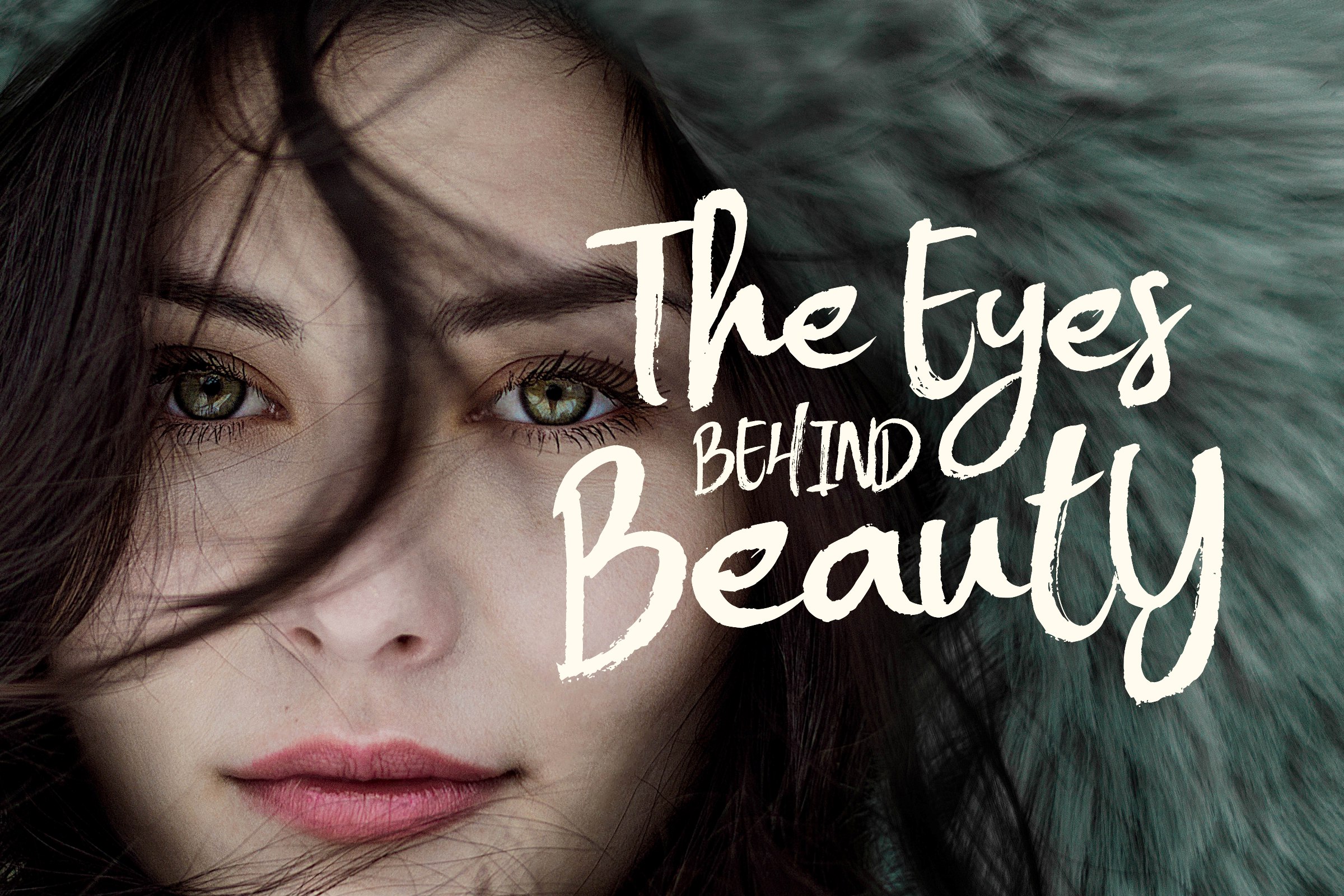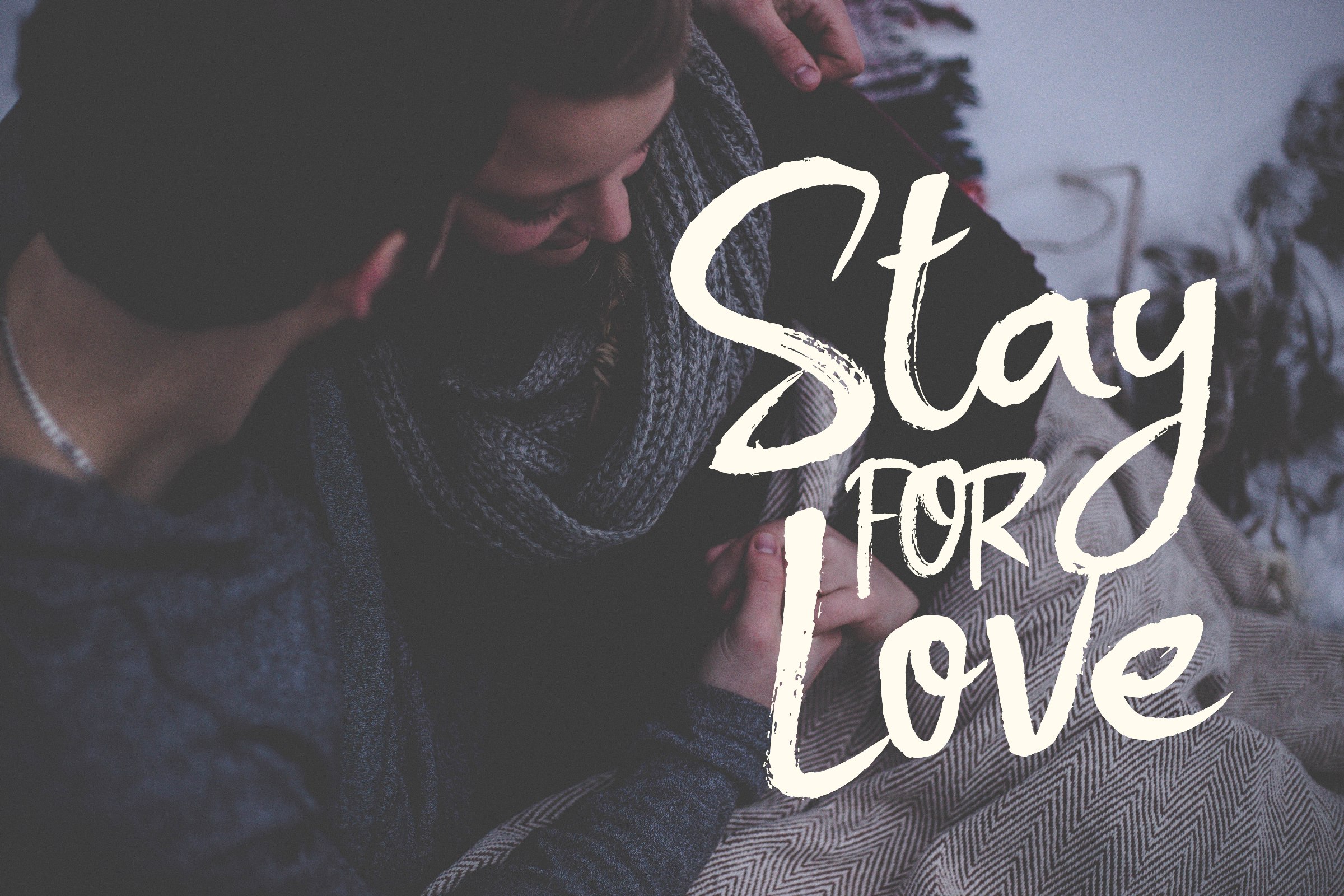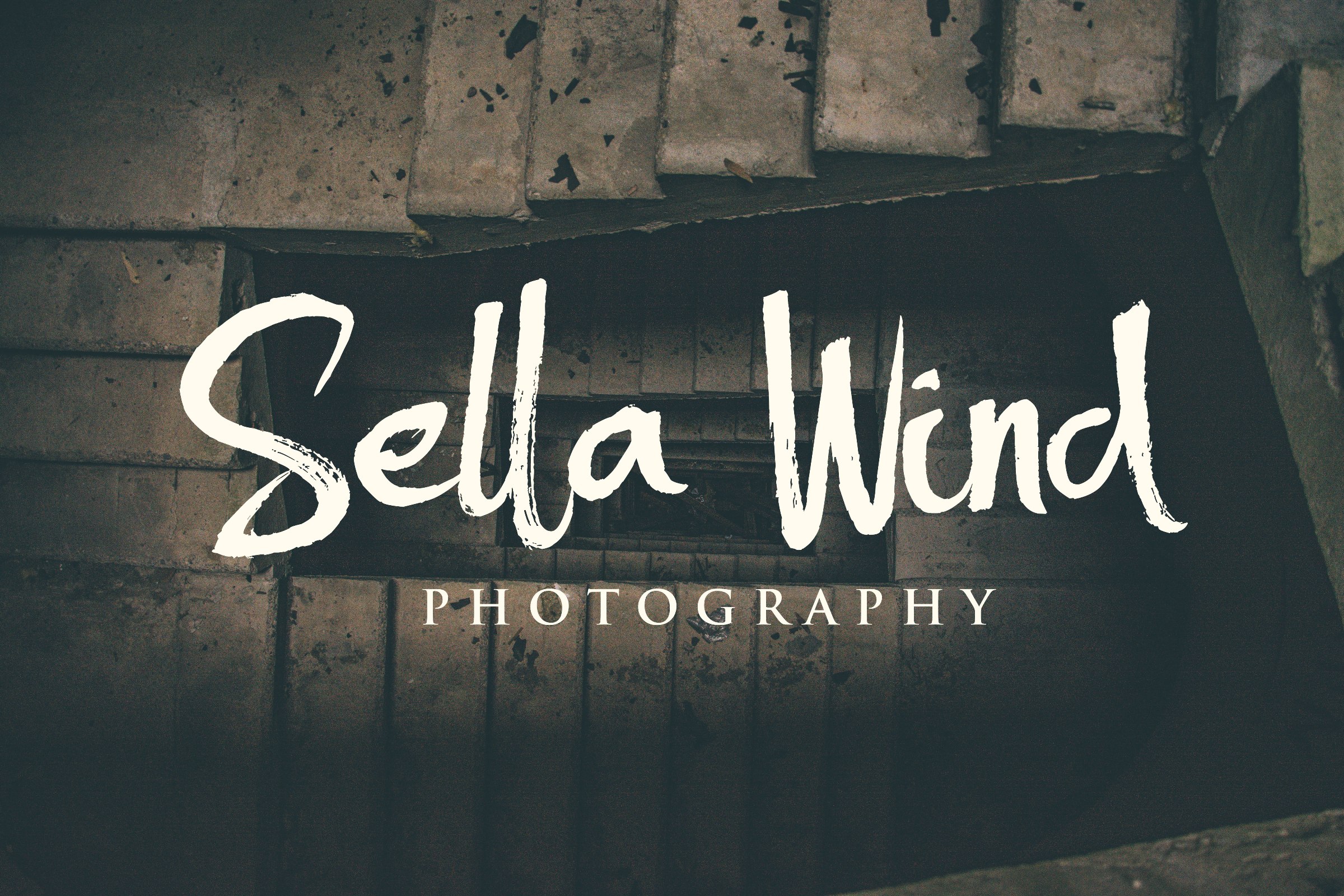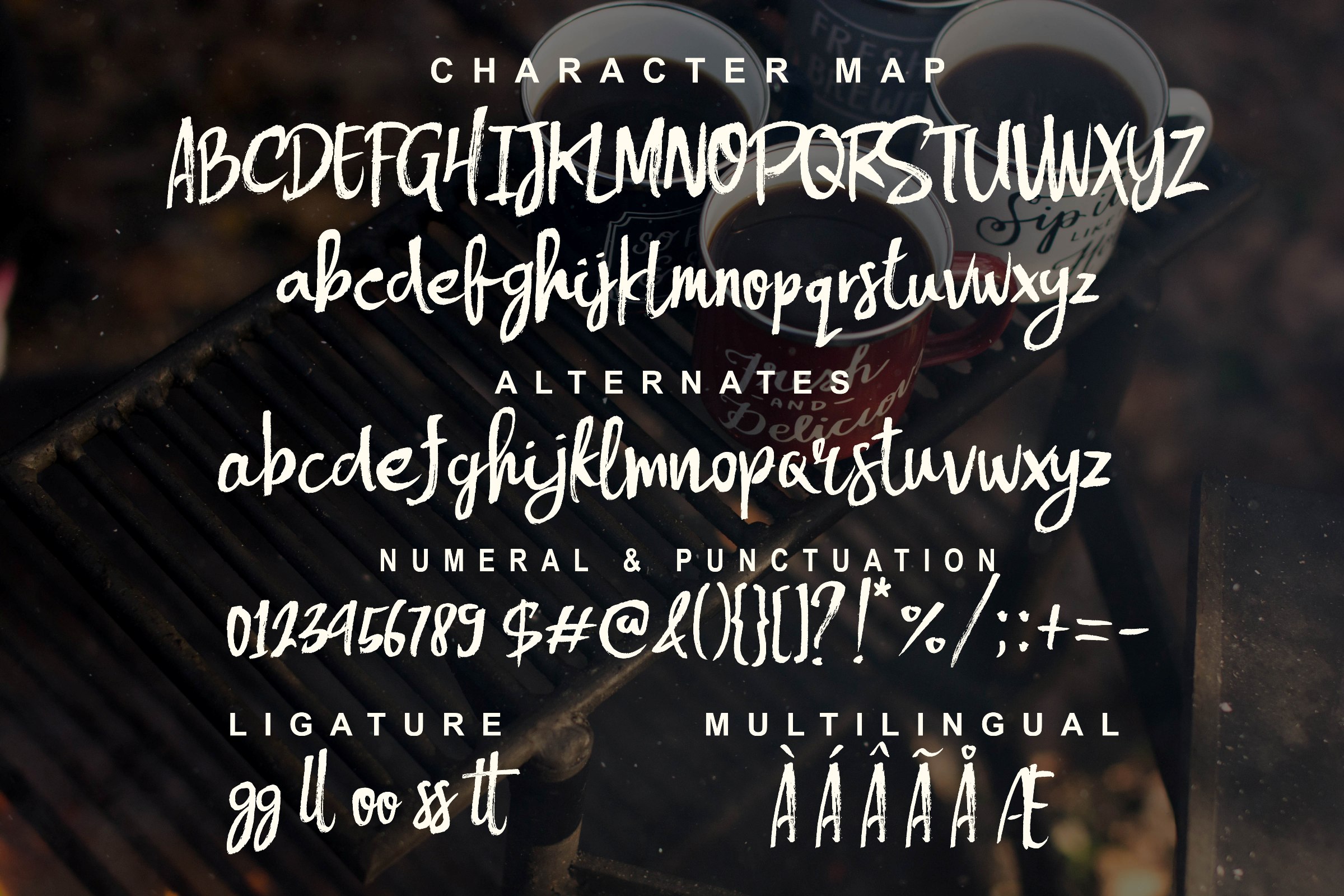
Still Love Font
Still Love is casual dry brush that allows you to create fun expressive designs.
The Still Love font is great for logo design, posters, photography, apparel and many more types of design that need personal, natural touch.